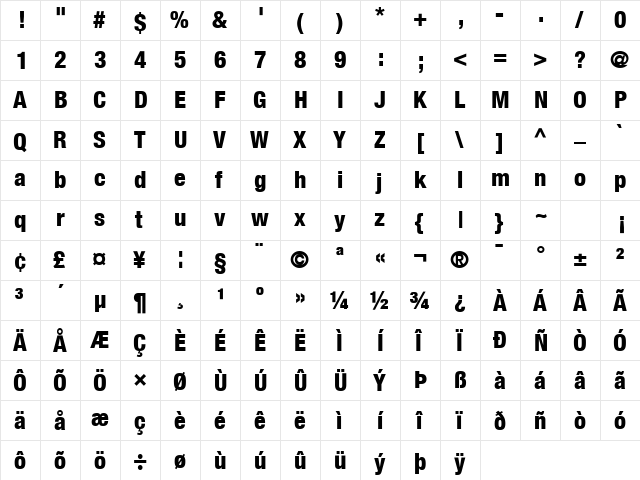
Context Reprise BlackCond SSi Normal
Design Context for Context Reprise BlackCond SSi Typeface
Context Reprise BlackCond SSi offers clean, dependable letterforms without strong stylistic allegiance, making it a practical choice for designers who need flexibility. Its narrow stance lets it pack a punch even in space-constrained designs.